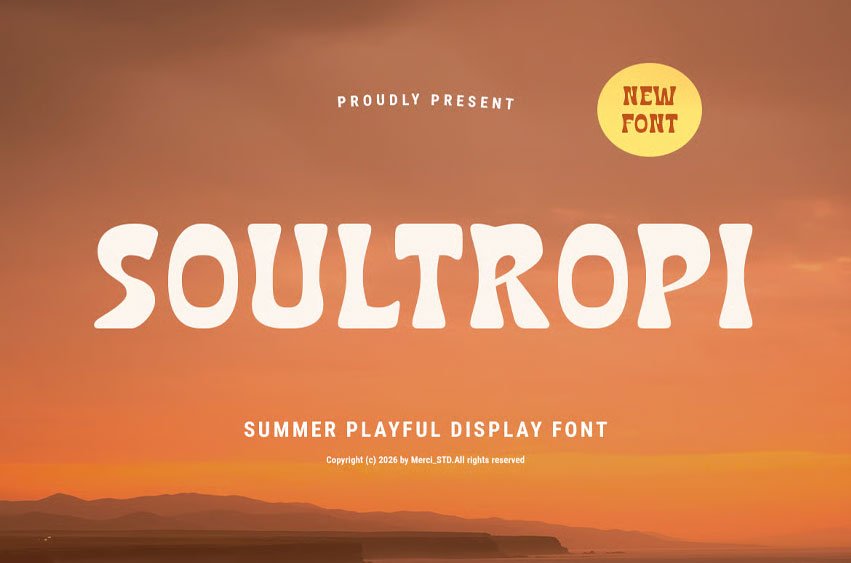
Soultropi Font is a summer playful display font with cheerful curves and warm tropical vibes.
Perfect for beach themes, fun branding, creative posters, menus, travel visuals, kids projects, and seasonal promotions, this font creates a bright and memorable summer atmosphere with bold personality.
- Uppercase Letters
- Ligature & Alternate Character
- Unique Hand-Drawn Style